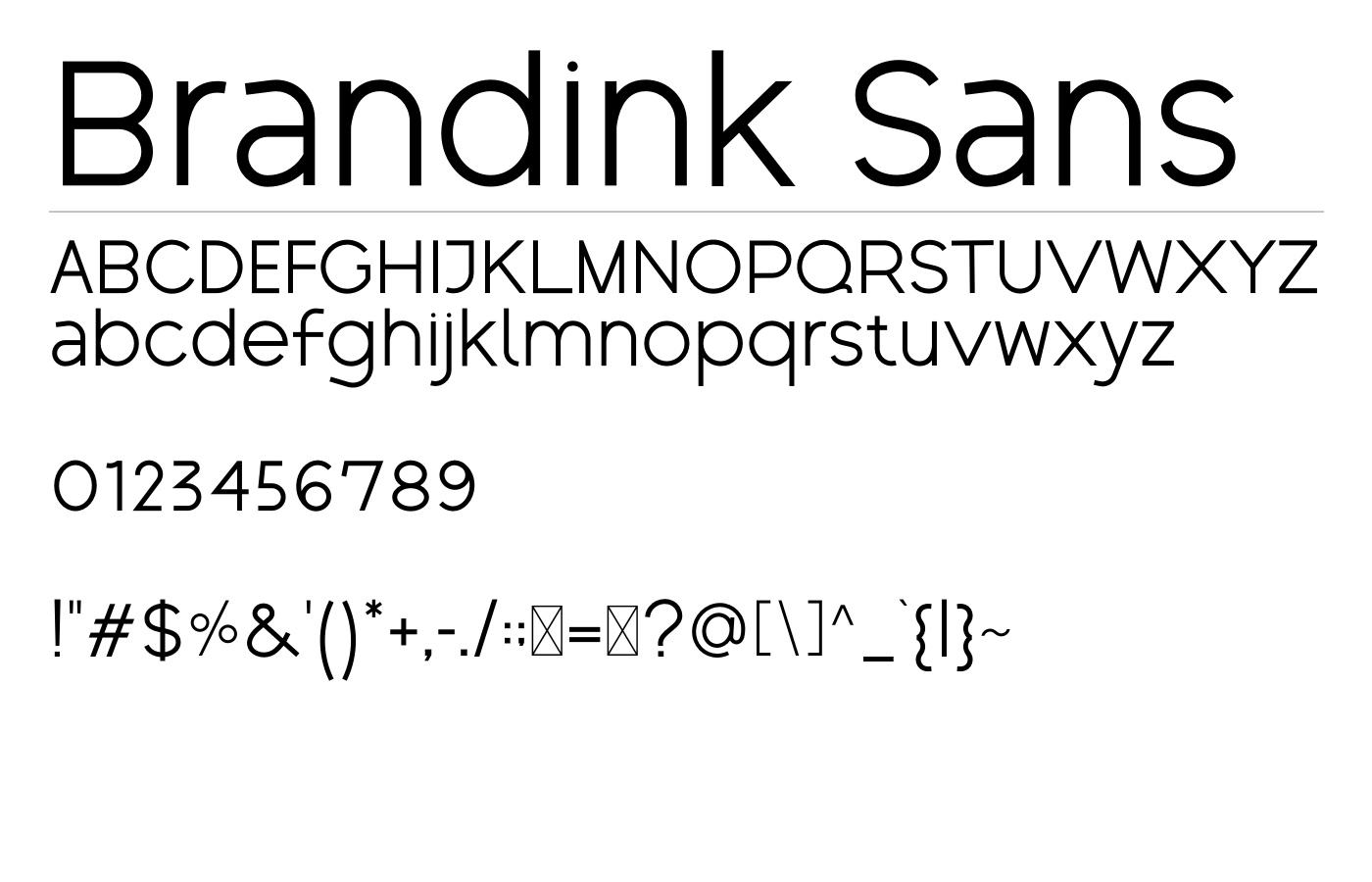
Brandink Sans is a clean and modern sans serif font characterized by its light weight, narrow width, and low contrast between strokes. Its simple, geometric letterforms with open counters and a single-story 'a' and 'g' give it a contemporary, minimalistic feel that works well for sleek branding, digital interfaces, and editorial design. This font excels in creating clear, readable headlines and body text where a professional yet approachable tone is desired.
Brandink Sans Font
About Brandink Sans Font
| Designer | Muh Muammar |